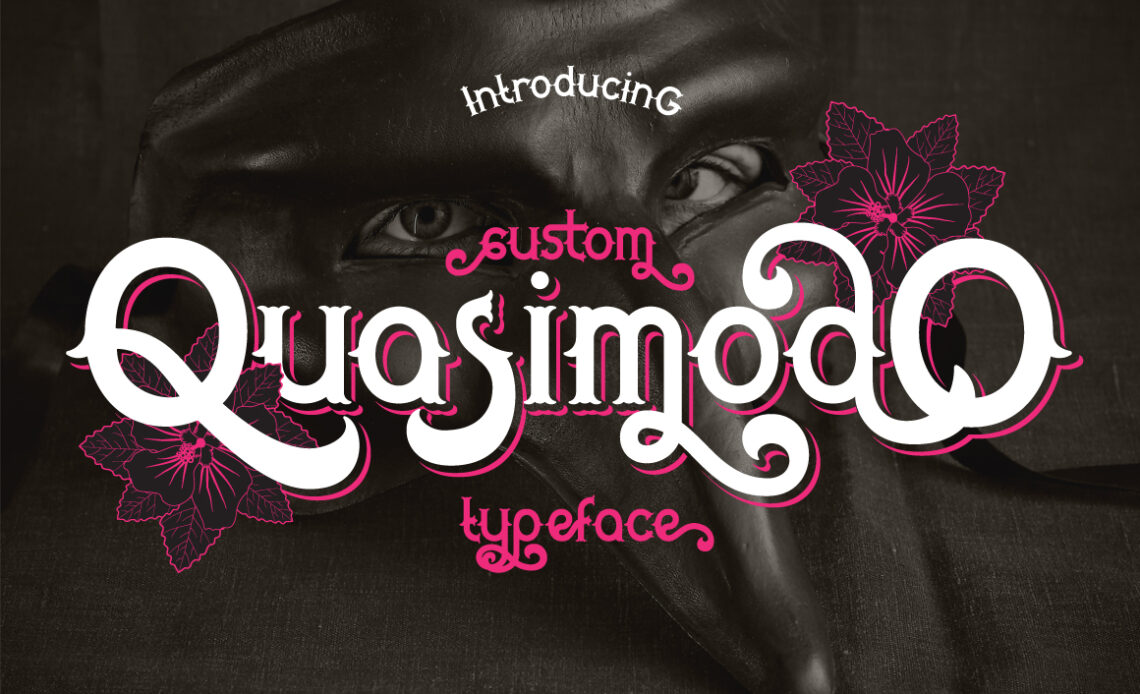
Quasimodo Font
Unleash the power of expression with Quasimodo, the decorative font that will make your designs resonate with customers. Designed by NREY, this expressive font is not just a collection of letters, but a gateway to transforming your designs into memorable and captivating creations. Whether you're working on corporate designs, crafting captivating magazines, or creating personalized works of art, Quasimodo will effortlessly elevate your text into something truly unique.
Immerse yourself in the diverse world of Quasimodo, where each character dances across screens with elegance and charm. Its intricate details and bold strokes command attention, leaving an unforgettable impression on your audience. Let Quasimodo be your creative companion, guiding you through the realm of design possibilities with its exceptional versatility. With Quasimodo, your designs will not just communicate, they will captivate.
Picture this: a corporate brochure that exudes professionalism and sophistication, thanks to Quasimodo's impeccable lines and curves. Imagine a magazine cover that draws readers in with its intriguing and eye-catching headlines, brought to life by Quasimodo's expressive personality. Envision personalized invitations that reflect the unique essence of each recipient, made possible by Quasimodo's adaptability. Quasimodo is more than just a font; it's an artistic key that unlocks the door to design excellence.
Don't settle for ordinary when you can have extraordinary. Embrace Quasimodo and witness the transformation of your designs into works of art. Its intricate details and bold strokes will leave a lasting impression, ensuring that your designs are not just seen, but remembered. Join the creative revolution and let Quasimodo be your guide. Download it today and embark on a design journey that will leave you inspired and your audience amazed.